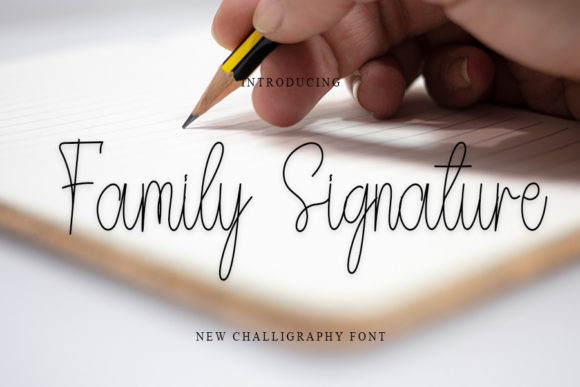
Introducing Family Signature Font, the epitome of elegance and sophistication. Immerse yourself in the world of calligraphy with this exquisite script font that will transform your creative projects into breathtaking masterpieces.
Crafted with precision and artistry, Family Signature Font captures the essence of handwritten beauty. Its delicate strokes and flowing lines evoke a sense of timeless romance, making it the perfect choice for expressing your heartfelt emotions.
Whether you're designing wedding invitations, heartfelt cards, or enchanting logos, Family Signature Font will add a touch of magic to your designs. Its versatility shines through in its ability to seamlessly blend with various design aesthetics, from classic to contemporary, ensuring that your creations stand out from the rest.
With Family Signature Font at your fingertips, you'll discover endless possibilities for self-expression. Its delicate charm will elevate your projects, leaving a lasting impression that resonates with your audience.
Unleash your creativity and embark on a journey of artistic exploration with Family Signature Font. Experience the joy of transforming ordinary words into captivating works of art, leaving your audience spellbound by your creations.